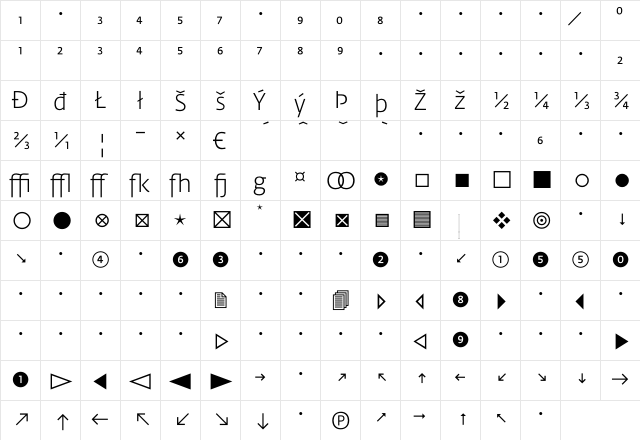
Fedra Sans Light Expert
Design Context for Fedra Sans Typeface
Fedra Sans offers clean, dependable letterforms without strong stylistic allegiance, making it a practical choice for designers who need flexibility. Its slender proportions lend an understated elegance to any composition.